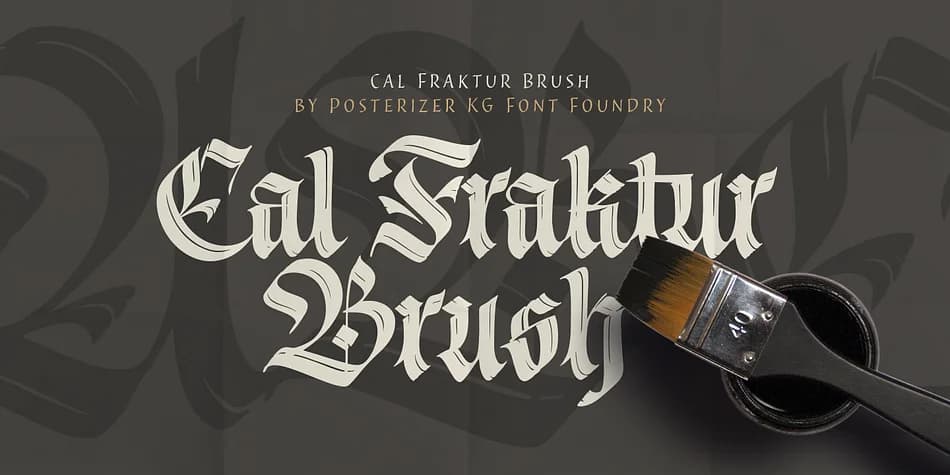
Cal Fraktur Brush draws its distinctive character from the loose, expressive quality of a wide brush applied to classic blackletter forms. Posterizer KG created this typeface within their Cal calligraphic series, swapping out the disciplined pen nib for organic, sweeping letterforms that balance careful structure with spontaneous energy. The result is a typeface that feels both rooted in tradition and alive with movement.
The thick-and-thin contrast created by the brush technique gives this blackletter its commanding presence at large sizes. This inherent weight variation translates into immediate visual impact, making the font especially effective for dramatic magazine headlines, vintage tattoo designs and lettering work, custom book jacket compositions, graffiti-inspired brand identities, and streetwear graphics. Craft beverage labels and artisanal product packaging also benefit from its bold character. Exterior signage for independent music venues and boutique shops, along with documentary film titles and concert posters, all showcase what the typeface can do. Despite the expressive brushwork, the underlying blackletter structure keeps the font reasonably legible even at smaller scales, though it truly shines as a display element.
- Ornate, Gothic
- Logos, Certificates
- medieval themes, band merch, and tattoo lettering
- a clean sans-serif for body text
Cal Fraktur Brush Font is a blackletter font that shines as a display or heading face. Pair it with a clean serif or sans-serif font for body text β the contrast creates a clear hierarchy while the two styles stay balanced and easy to read.
Cal Fraktur Brush Font